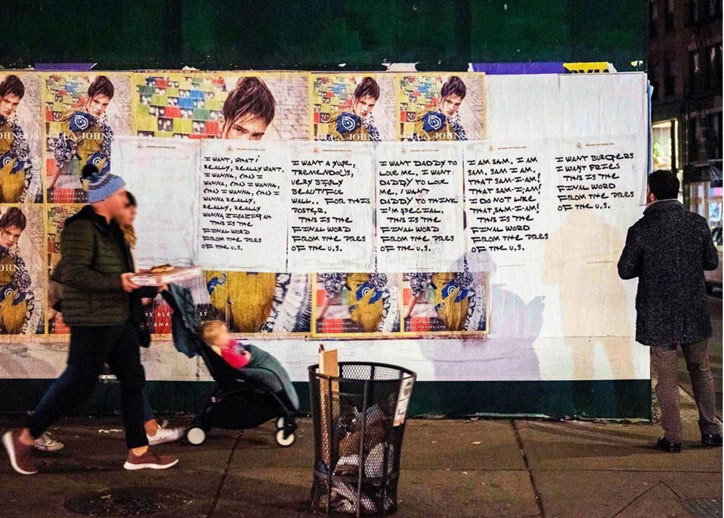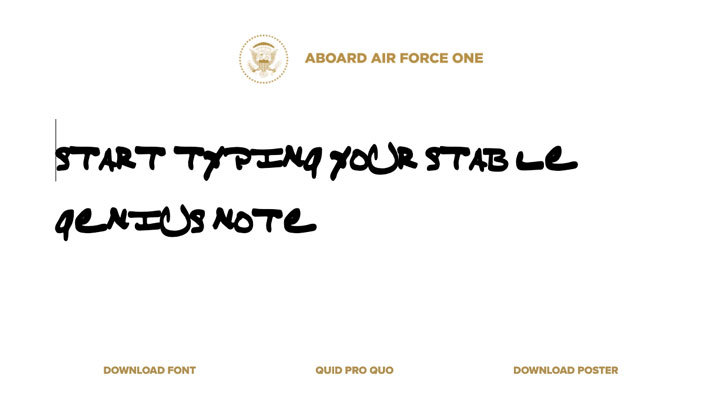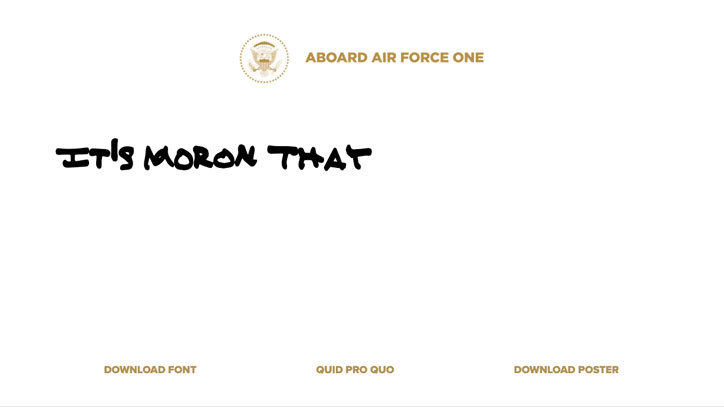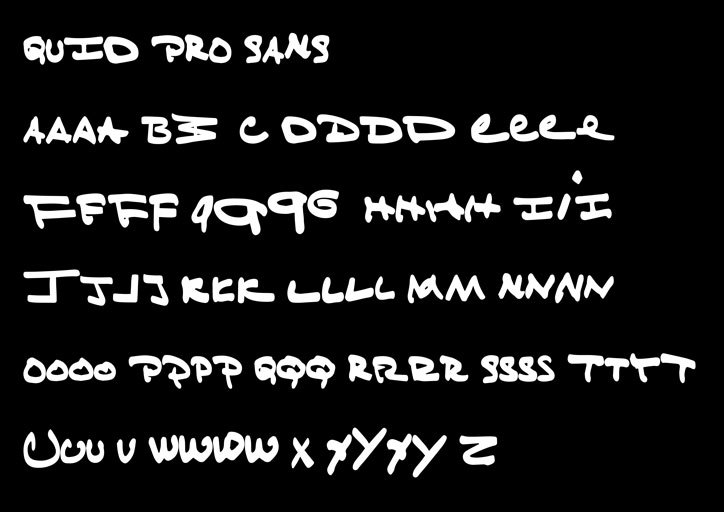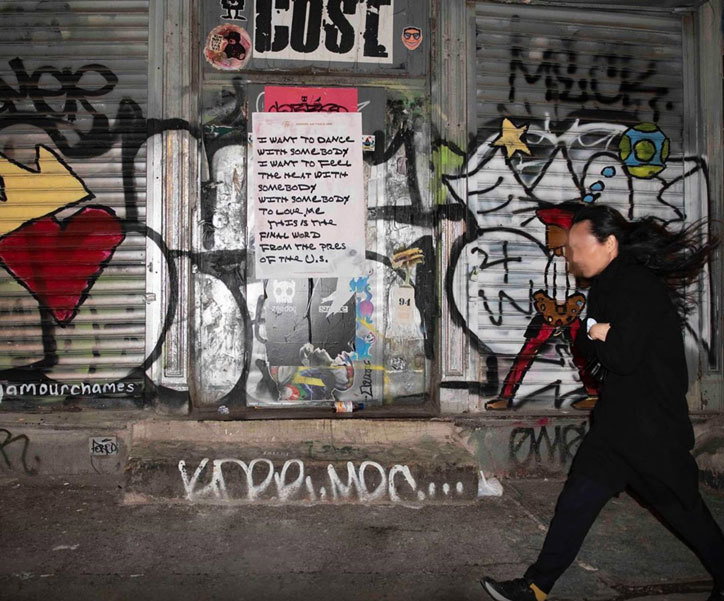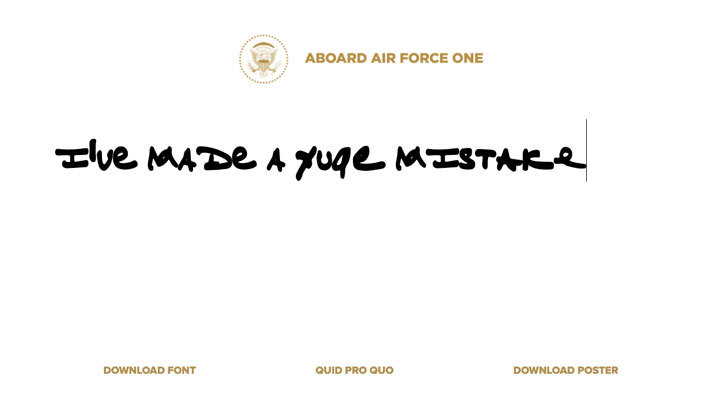
Quid Pro Sans lets you type in Donald Trump’s giant felt tip handwriting, with some surprises
The free typeface by Rick Banks’ F37 Foundry and agency JKR features a spectrum of Trump’s erratic approach to the same letterforms, and autocorrects up to 100 words with comically Trumpian replacements, like “nice” to “moron”, and “Trump” to “stable genius”.
Rick Banks’ type foundry F37 and the New York office of international agency Jones Knowles Ritchie last week reacted at breakneck creative speed to make a typeface based on Trump’s instantly infamous Quid Pro Quo notes. Revealed casually during a statement to the press, the president’s handwritten, felt tip pen scrawl went viral and almost eclipsed the statement itself, which saw him address Gordon Sondland’s testimony to the House Intelligence Committee that Ukraine was tied to a quid pro quo. His notes read: "I WANT NOTHING. I WANT NO QUID PRO QUO. TELL ZELLINSKY TO DO THE RIGHT THING. THIS IS THE FINAL WORD FROM THE PRESS OF THE U.S."
Like a moth to a flame, the creative team couldn't let a such a high-profile typographic moment pass on by. JKR got in touch with Banks with an idea and a tight deadline. "I got a text message at 9pm, saying 'we want to make a typeface from Trump’s handwriting in 24 hours. Can you do it?'" Banks tells It's Nice That. "I said yes without a brief, and (as JKR are in New York) I woke up to a longer brief, which included swapping out lots of words with Open Type, which is a lot more tricky."
Up for a challenge, Banks set about creating the typeface called Quid Pro Sans, which not only transforms Trump's handwriting to a usable typeface – including multiple versions of the same letter, as per his inconsistent penmanship - but also autocorrects up to 100 words with comically Trumpian replacements. For example, “thing” changes to “no collusion”, “KKK” to “fine people” and (of particular hilarity to us) “nice” to “moron”.
To accurately represent his idiosyncratic script, Banks referred to other samples of Trump's handwriting online, alongside the Quid Pro Quo notes. There are multiple ligatures for the same letterforms – for instance if you type the letter “i” more than once, the second “i” will look different to the first. "He always seems to use a huge felt tip pen, weirdly," Banks says of his research into Trump's note writing, "and a lot of the letterforms are different. They’re always uppercase – he seems to have an upper-upper case and a lower-upper case. Some of the forms are almost painted, and he uses this elongated tail on his 'e'. Also, his writing and signature seems to have got more erratic over time. It’s an interesting insight into the mind of Donald Trump."
Banks has previously reacted to Trump using type helping create a typeface to raise money for charities affected by his administration.